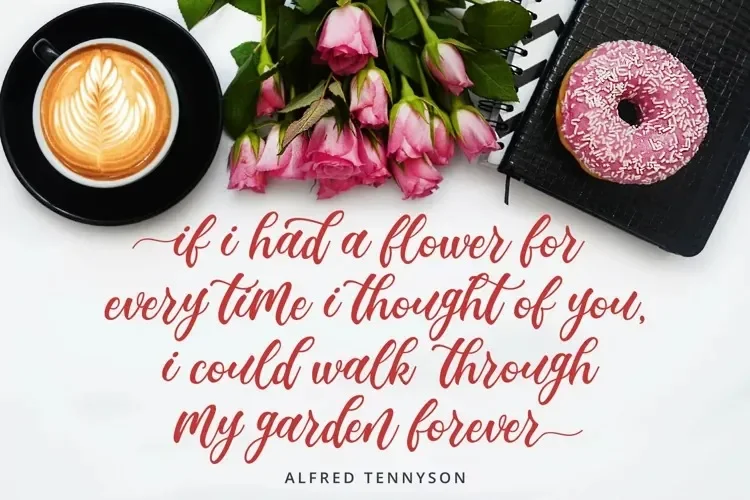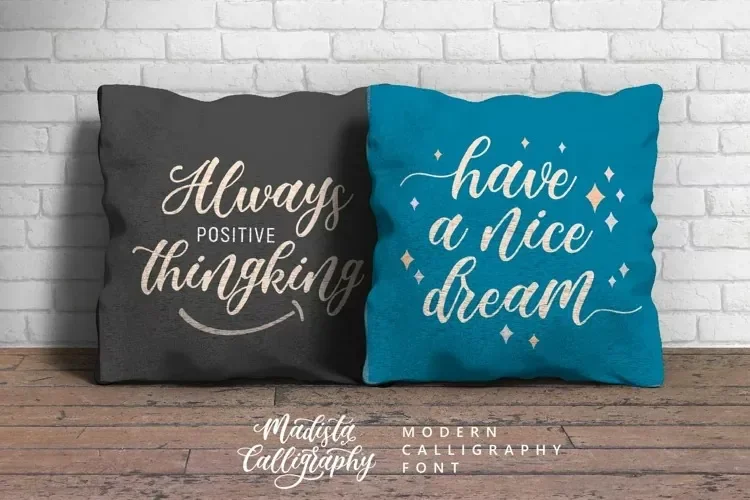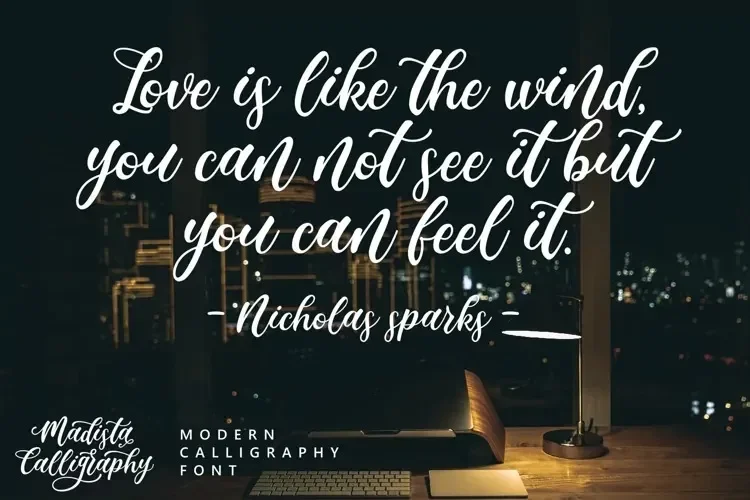
Madista Calligraphy Fonts bring the beauty of handwritten art to your screen. Whether flowing and romantic or structured and refined, they give your text that extra touch of class. They're perfect for weddings, branding, or anywhere you want your words to feel personal and polished.
Designer: Zeenesia Std
Released: Popularized in digital form during the 2000s via Google Fonts and Dafont
Style: Formal, copperplate, modern, and brush calligraphy
Elegant curves and high contrast between thick and thin strokes
Often includes stylistic alternates, swashes, or ligatures
Usually script-style some cursive, some upright
Best used for short phrases, not long paragraphs
Use these fonts in logos, event branding, or headers. To avoid overwhelming a layout, pair them with a simple sans-serif like Raleway or Open Sans.